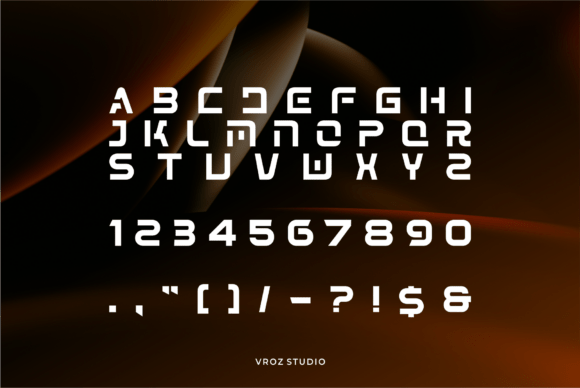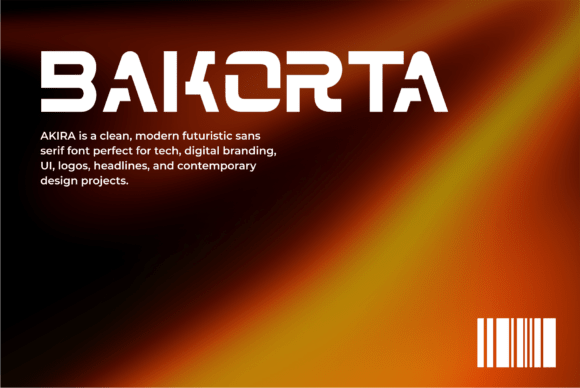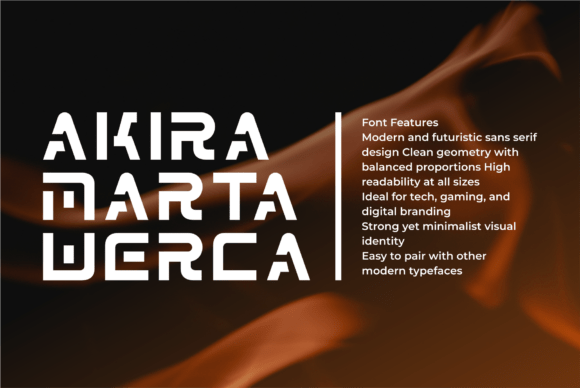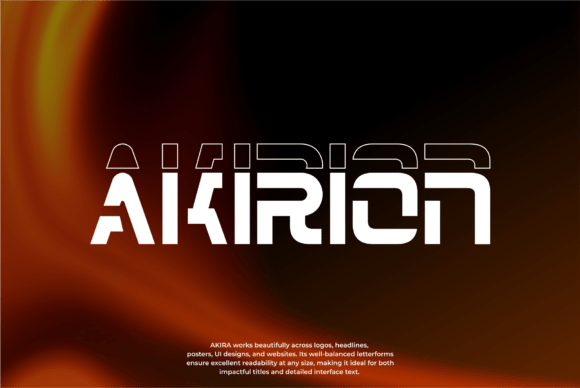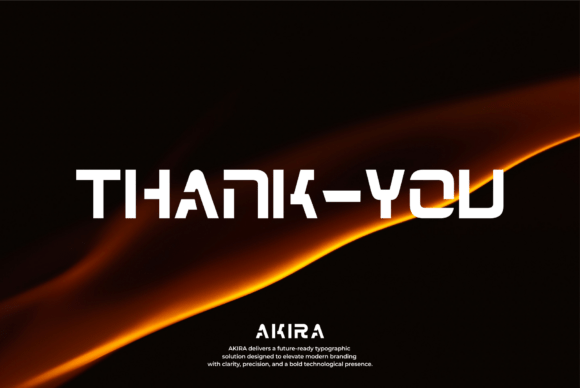
Unleash the Power of Akira Font: A High-Octane Display Typeface
In the world of typography, few fonts can evoke the sense of velocity and power that Akira font embodies. This high-octane, wide-set display typeface is designed to dominate headlines, oversized posters, and cinematic titles, making it a staple for designers and crafters looking to make a bold statement. With its heavy weight and sharp, angular cuts, Akira font feels like it was pulled straight from a high-budget sci-fi epic or a professional racing circuit.
Design and Characteristics
Akira font boasts a unique design that sets it apart from other display typefaces. Its wide proportions command attention even from a distance, making it perfect for outdoor advertising and bold digital banners. The font’s heavy weight and sharp, angular cuts give it a rugged, high-tech look that’s both expensive and cutting-edge. Whether you’re designing a logo, a poster, or a title sequence, Akira font is sure to make a lasting impression.
Perfect for High-Impact Designs
Akira font is built for dominance in high-impact designs. Its wide-set design and heavy weight make it perfect for headlines, oversized posters, and cinematic titles. The font’s sharp, angular cuts add a touch of sophistication and elegance, making it suitable for a wide range of design applications. Whether you’re designing for print or digital media, Akira font is sure to grab attention and leave a lasting impression.
Pairing Suggestions
To create a high-contrast, technical layout that looks both expensive and cutting-edge, pair Akira font with a condensed monospaced font. This combination creates a visually appealing contrast that adds depth and sophistication to your design. The condensed monospaced font provides a clean and elegant contrast to Akira’s bold, angular design, making it perfect for designs that require a high level of technical precision.
Applications and Use Cases
Akira font is versatile and can be used in a wide range of design applications, including:
- Outdoor advertising: Akira font’s wide proportions and heavy weight make it perfect for billboards, posters, and other outdoor advertising applications.
- Cinematic titles: Akira font’s sharp, angular cuts and heavy weight make it perfect for title sequences, movie posters, and other cinematic applications.
- Digital banners: Akira font’s bold design and wide proportions make it perfect for bold digital banners and other online advertising applications.
- Logo design: Akira font’s unique design makes it perfect for logos and branding applications that require a bold, high-tech look.
Here are some tips and tricks for getting the most out of Akira font:
- Use Akira font in large sizes to maximize its impact. The font’s wide proportions and heavy weight are designed to be seen from a distance.
- Experiment with different colors and textures to add depth and sophistication to your design.
- Pair Akira font with a condensed monospaced font to create a high-contrast, technical layout.
- Use Akira font to create a bold, high-tech look that’s perfect for sci-fi, racing, or technology-themed designs.
| Font Name | Akira Font |
| Author | Vroz Studio |
Akira font is a high-octane, wide-set display typeface that’s perfect for designers and crafters looking to make a bold statement. With its heavy weight, sharp, angular cuts, and wide proportions, Akira font commands attention and demands to be seen. Whether you’re designing a logo, a poster, or a title sequence, Akira font is sure to leave a lasting impression. So why settle for a ordinary font when you can unleash the power of Akira font in your design?